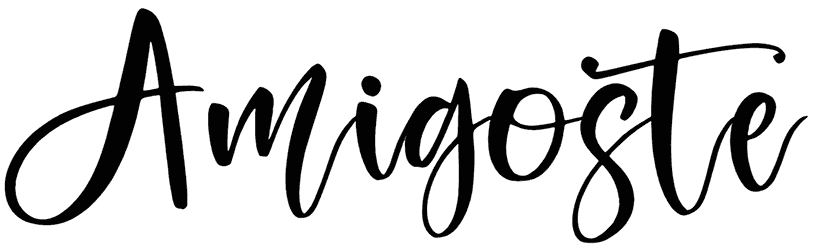
Amigoste Font
Having a magical script font such as the Amigoste that widens your selection range by offering two different styles would be totally tempting for any graphic designer who craves to create appealing projects.
This calligraphy font comes with a cursive style, thus it can add a sense of softness, vitality, vivacity, or tenderness to all of your projects, such as social media posts, video game brochures, movie posters, branding projects, or digital banners.